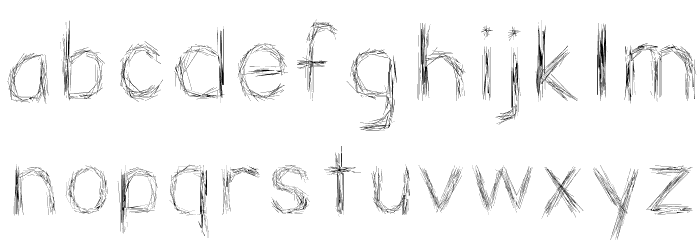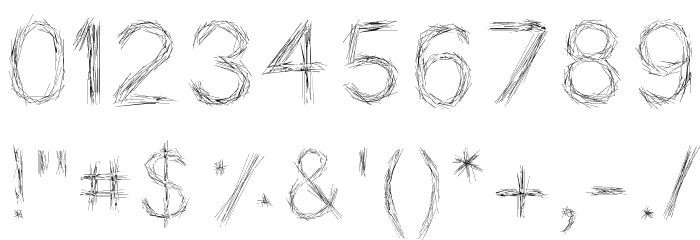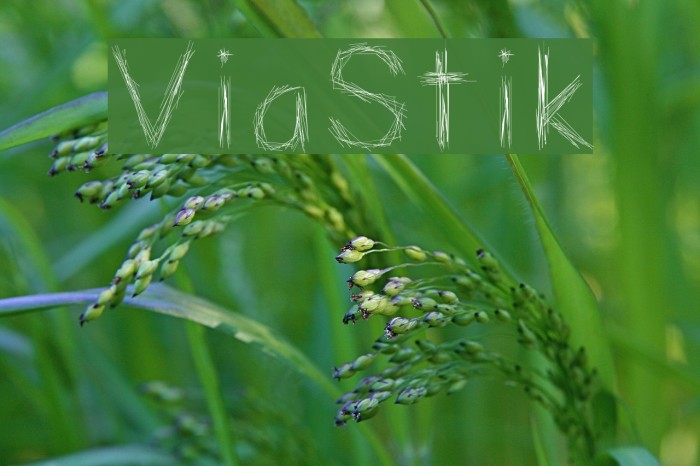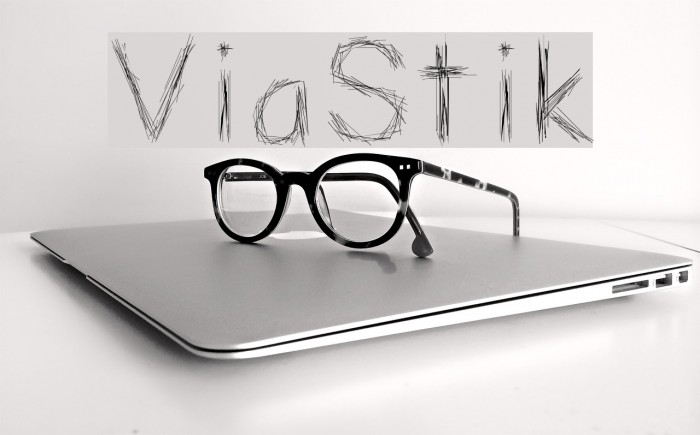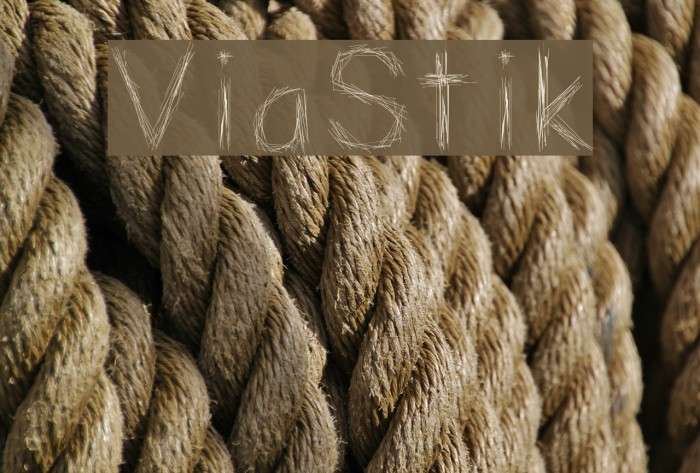
ViaStik Font
This font features a unique, hand-drawn style that mimics the appearance of rough sketches or scribbles. Each character is composed of multiple overlapping lines, giving it a textured and dynamic look. The irregularity in the strokes adds a sense of movement and energy, making it stand out as a creative and artistic choice. The uppercase and lowercase letters maintain a consistent style, while the numerals and special characters are equally expressive, ensuring a cohesive appearance across all text. This font is ideal for projects that require a personal, handcrafted touch.
A sketch-like, hand-drawn font with dynamic, textured strokes.
- Proposed Projects: Ideal for artistic projects, creative branding, posters, and any design that benefits from a handcrafted, personal touch.
- Overall Style: Artistic, Hand-drawn
- Use Case: Logos, Posters, Creative Branding